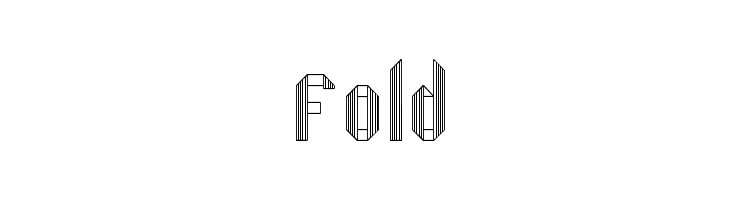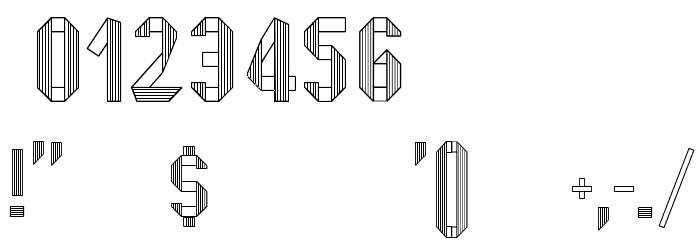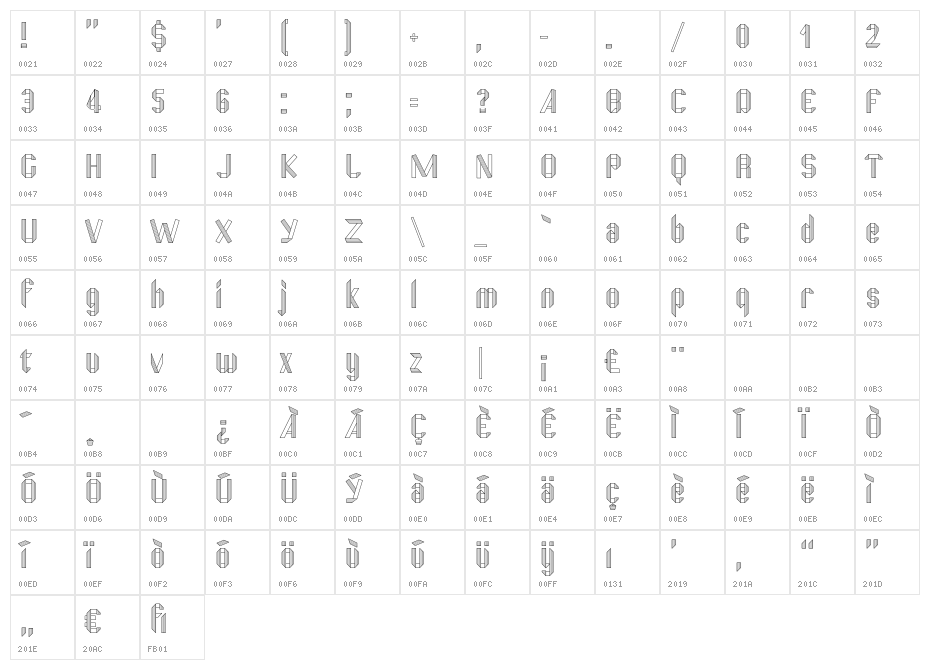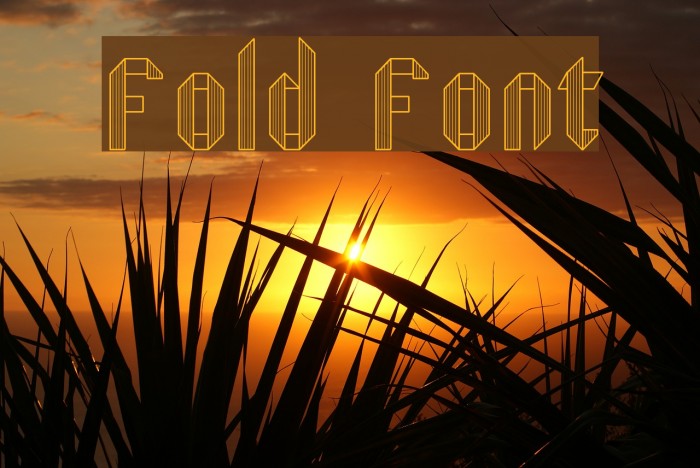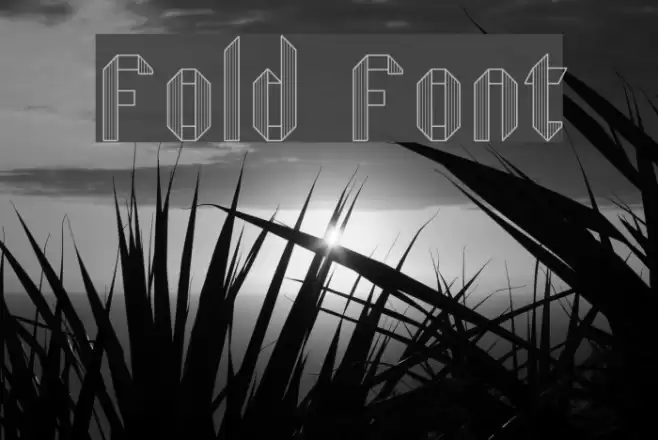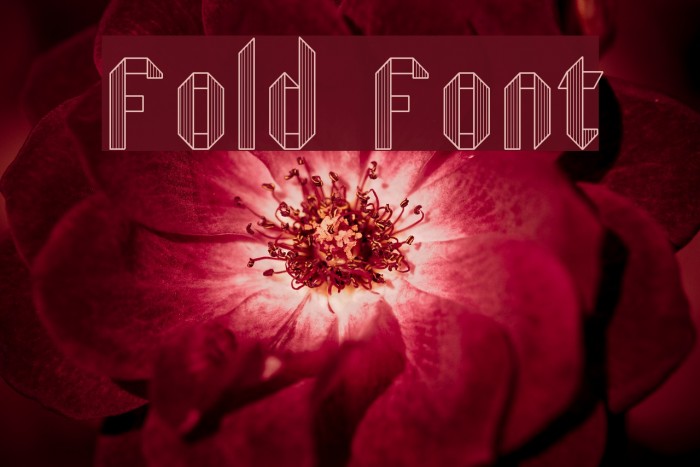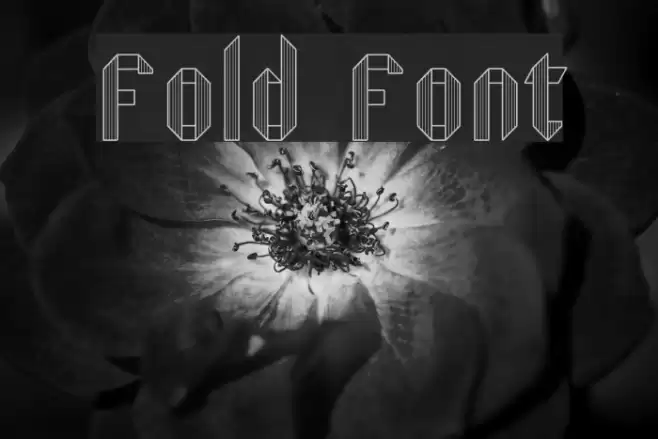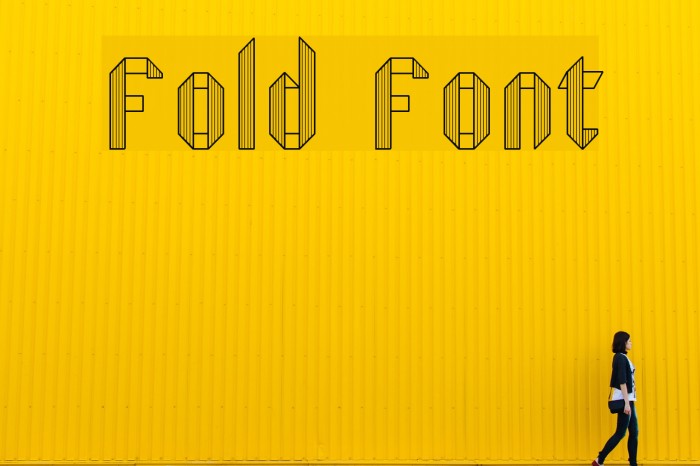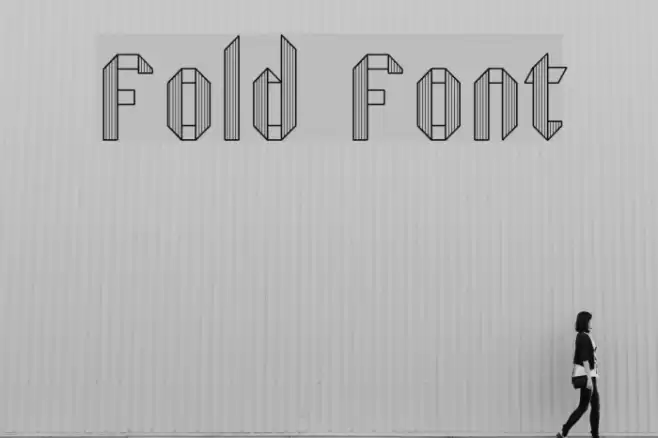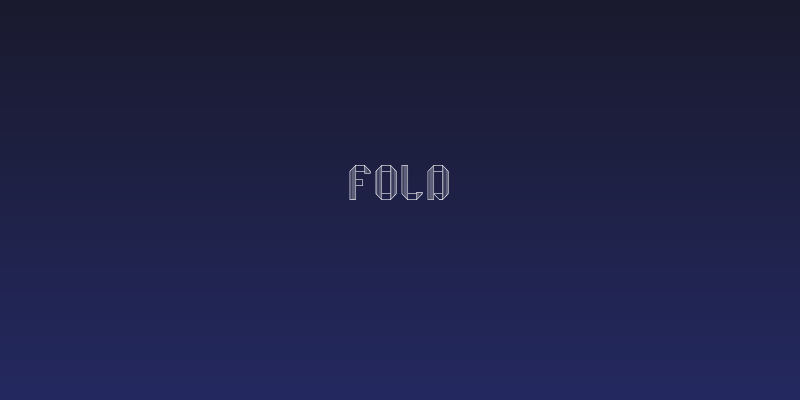
Fold Font
Fold Description
This font features a unique, geometric design with a folded, ribbon-like appearance. Each character is constructed with parallel lines that create a sense of depth and dimension. The uppercase and lowercase letters maintain a consistent style, with sharp angles and a bold presence. The numbers and special characters are equally distinctive, following the same folded motif. This font's intricate design makes it stand out, offering a modern and artistic flair that is both eye-catching and memorable.